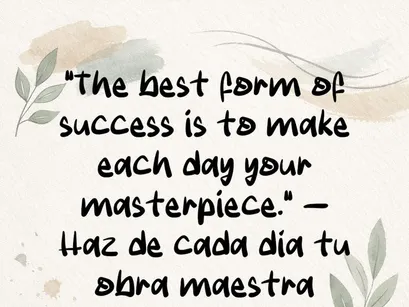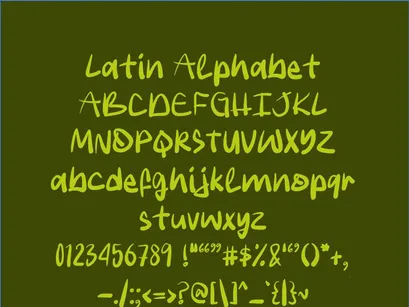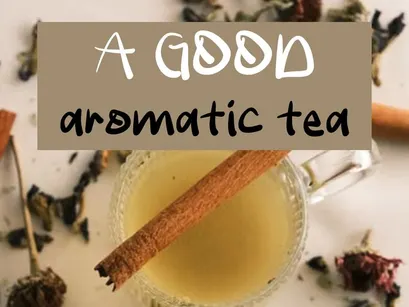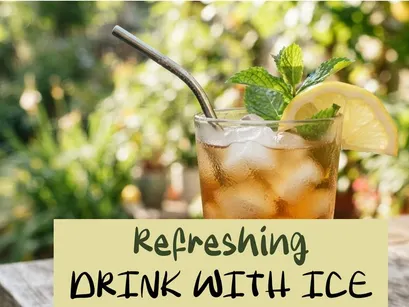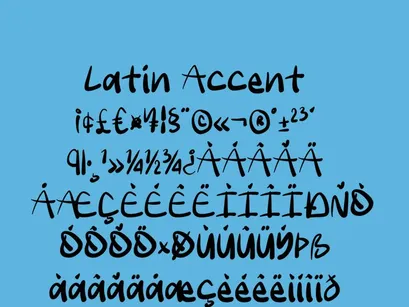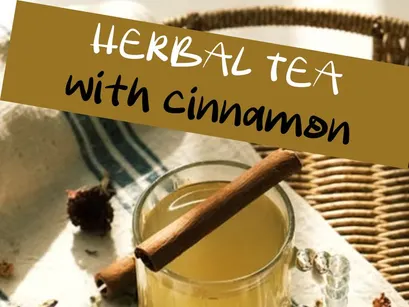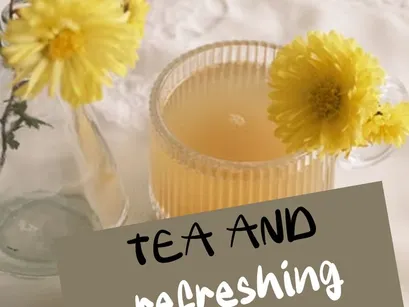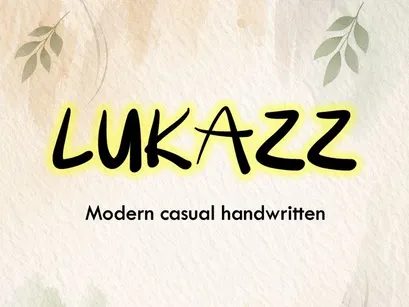
LUKAZZ is a handcrafted typeface featuring soft, expressive strokes, designed for projects seeking a natural, modern touch. Its casual handwritten style blends spontaneity with readability, making it ideal for branding, planners, packaging, inspirational quotes, and digital designs with personality.
Perfect for those who love fonts with a creative soul and an organic finish.
✦ Key features:
• Modern, relaxed style
• Fluid, balanced lettering
• Ideal for handmade-style projects, blogs, and social media.